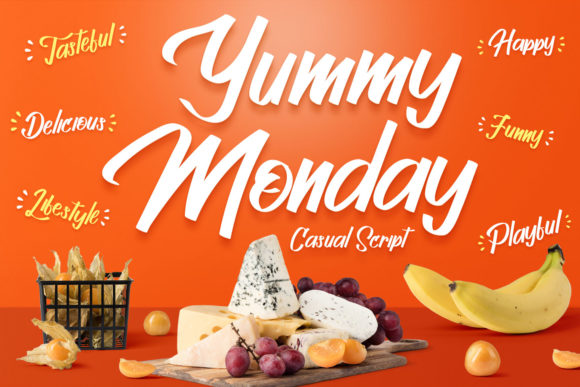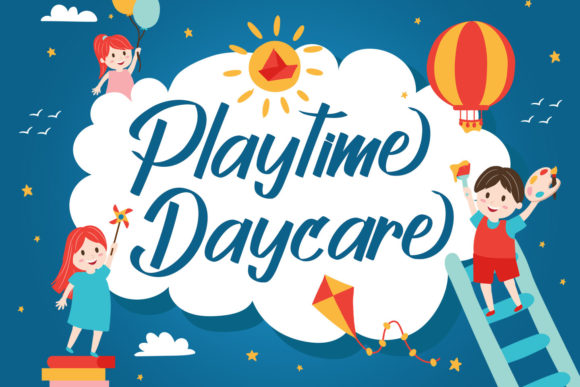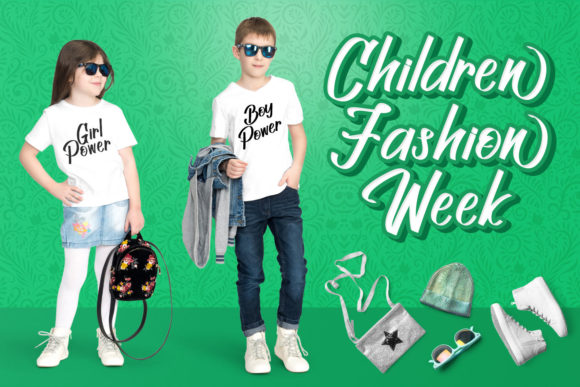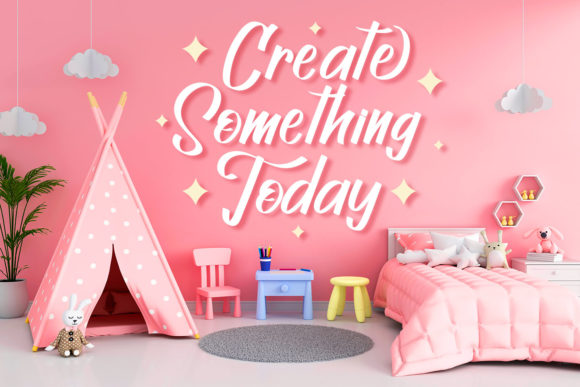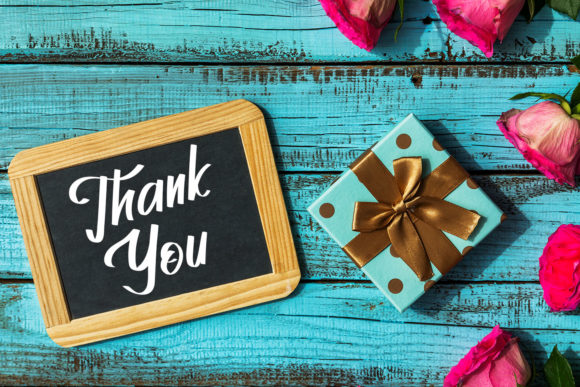
HomeScript FontsYummy Monday Font Script Fonts Yummy Monday Font FacebookXPinterestWhatsApp Yummy Monday Font Poster 2 Yummy Monday Font Poster 3 Yummy Monday Font Poster 4 Yummy Monday Font Poster 5 About Yummy Monday Font Yummy Monday is a quirky and sweet script font. This font will easily add a fun touch to any craft! DOWNLOAD ON CREATIVE FABRICAThis font is sold and delivered by Creative Fabrica. Font Canyon may earn a commission if you buy through this link. People also explored Patriast Font Gladise Font Raja Ampat Font Flamingo Font Insta Gromes Font Homesteader JNL Font Montallio Font Future Font Jingle Cookies Font 496 0 TagsYummy Monday Font Previous articleCleanliness Power FontNext articleAloritma Font LEAVE A REPLY Cancel reply Comment: Please enter your comment! Name:* Please enter your name here Email:* You have entered an incorrect email address! Please enter your email address here Website: Save my name, email, and website in this browser for the next time I comment. Personal Use Free Edo SZ Personal Use Free Read more about this font Thruster Personal Use Free Read more about this font Ciggs Personal Use Free Read more about this font Bollado Personal Use Free Read more about this font BLOG Fonts That Capture the Spirit of New York City New York City is more than just a place—it’s an experience, a rhythm, a visual language... The 10 Best Handwriting Fonts to Add Personality to Your Designs How to Install and Use Fonts on Windows, macOS, and Web Projects To increase your work productivity, choose the most readable fonts.